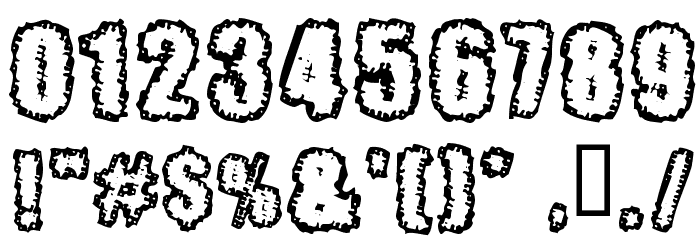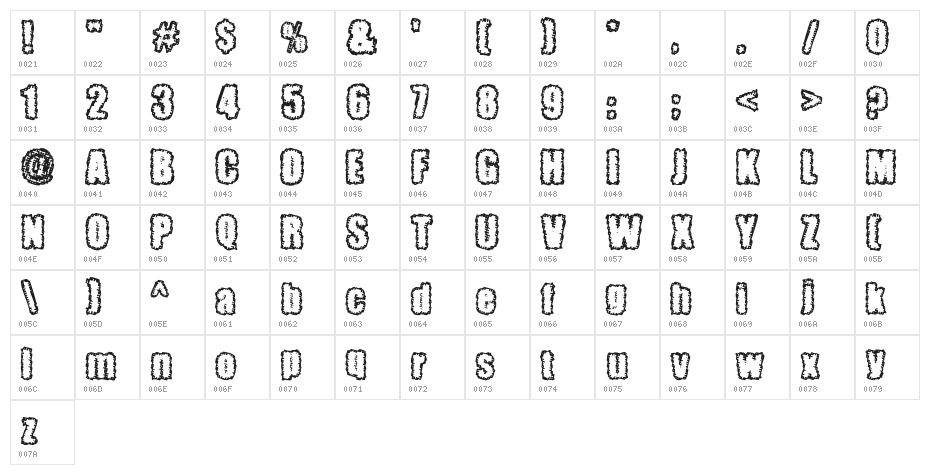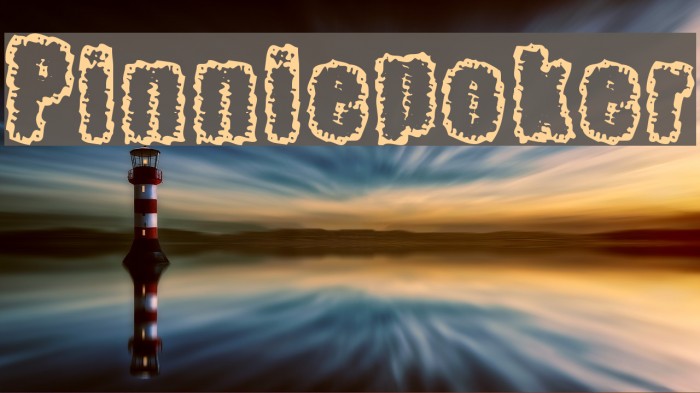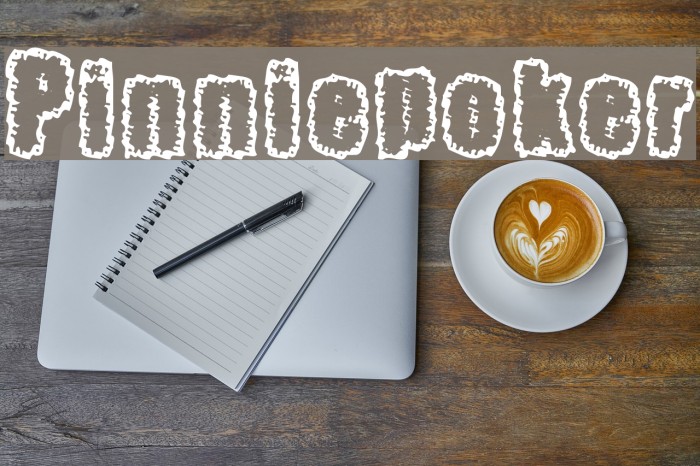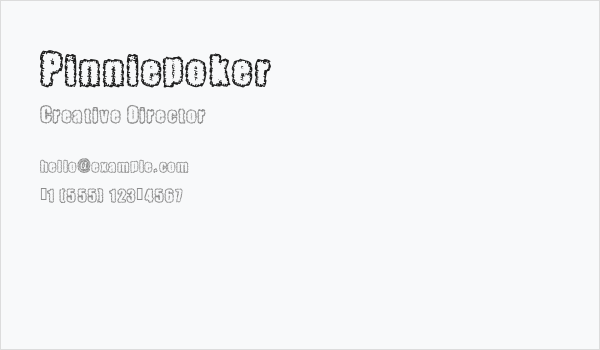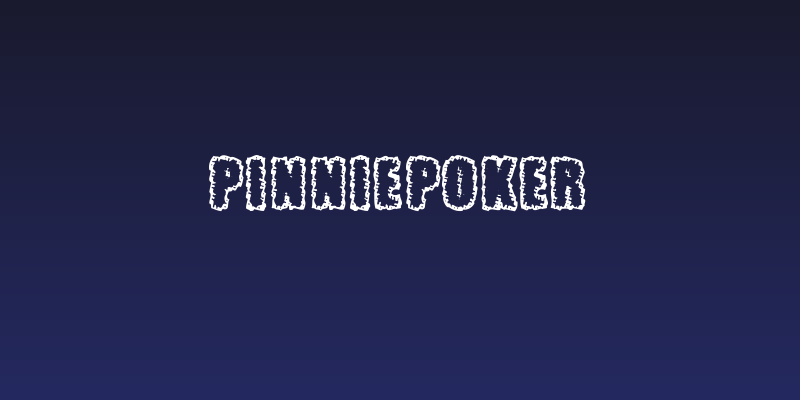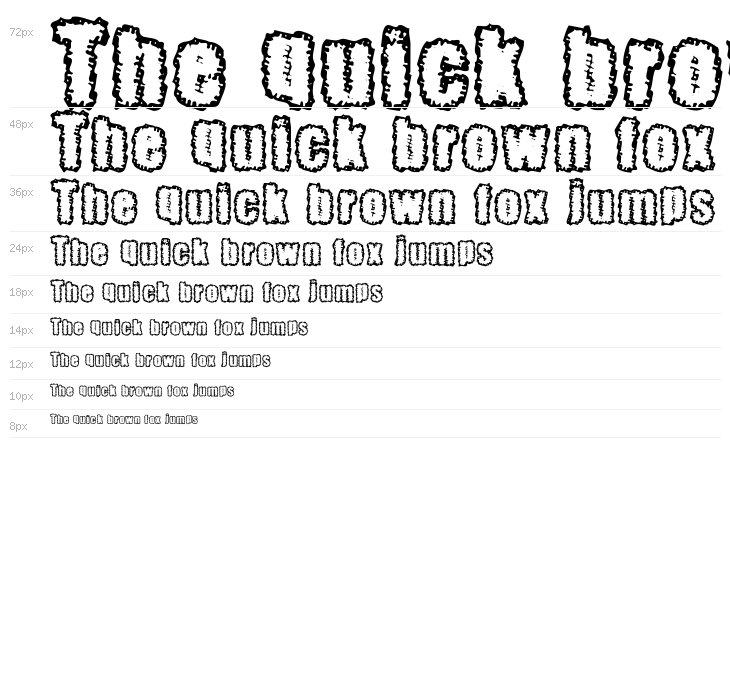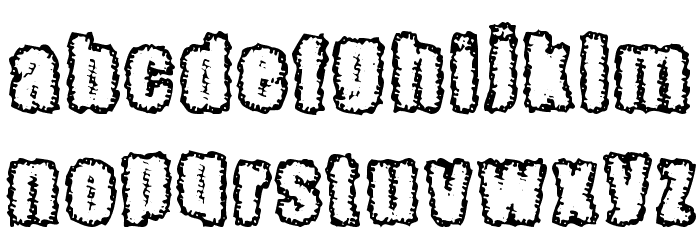
Pinniepoker Font
Pinniepoker Description
This font features a playful and bold design with a unique, jagged outline that gives each character a dynamic and energetic appearance. The letters are uppercase and lowercase, with numbers and a variety of special characters included. The style is reminiscent of a hand-drawn or graffiti-like aesthetic, making it stand out with its irregular edges and bold presence. The font's distinct look is perfect for projects that require a fun and eye-catching typeface.
| Proposed Projects | Ideal for posters, children's book covers, party invitations, and any design needing a fun, energetic vibe. |